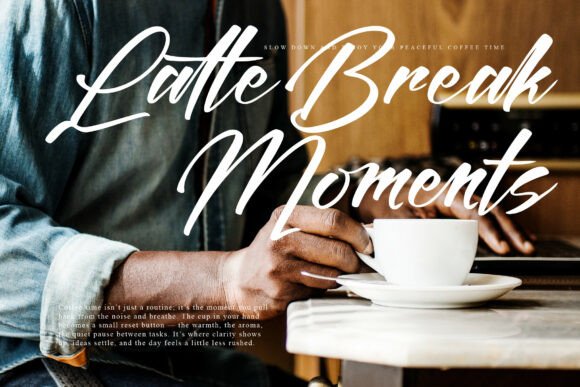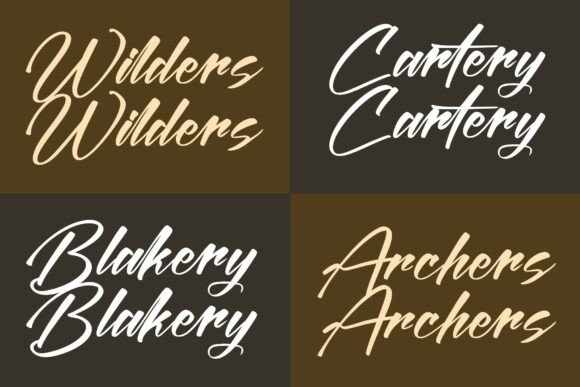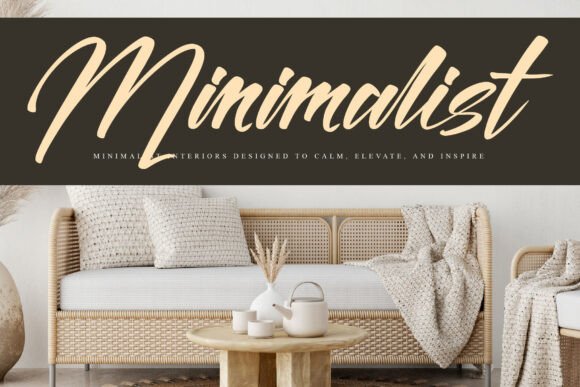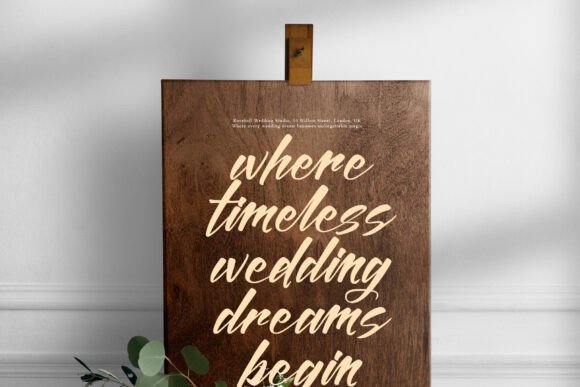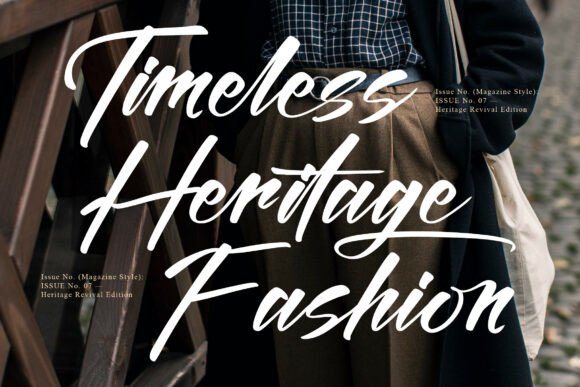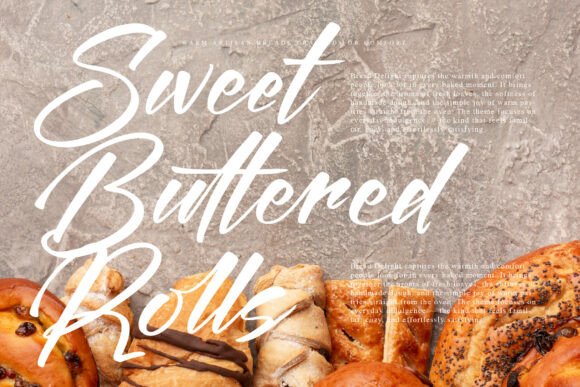
I still remember the frustration of working on a project, hours spent crafting the perfect design, only to hit a roadblock when it came to choosing the right font. My client wanted something modern, yet elegant; something that would make their brand stand out in a crowded market. I scoured the internet, tried out countless fonts, but nothing seemed quite right. That was until I stumbled upon **Blackers Luminous**. This stunning script font has been a game-changer for my design work, and I’m excited to share my experience with you.
An Honest Review of Blackers Luminous
• ✨ **Smooth, sweeping connectivity**: Blackers Luminous has a fluid, natural look that’s perfect for creating a bespoke feel.
• ✅ **Bold stroke variations**: The font’s dynamic strokes add a level of sophistication and elegance to any design.
• 💡 **High degree of authenticity and personal charm**: Blackers Luminous feels like handwriting, making it perfect for brands that want to convey a sense of personality.
• 📚 **451 total glyphs**: This font is packed with options, making it incredibly versatile.
• 🤔 **Limited use in very formal or traditional contexts**: Blackers Luminous is a modern, edgy font that might not be suitable for more conservative brands.
• ⚠️ **May require some experimentation to get the hang of OpenType features**: But trust me, it’s worth it!
The Story Behind Blackers Luminous
Blackers Luminous was designed with the modern brand in mind. Its creator wanted to craft a font that would exude confidence and a cool, urban edge. Inspired by the fluidity of brush lettering, Blackers Luminous is the perfect tool for designers looking to add a touch of sophistication and personality to their work.
Q: What kind of projects is Blackers Luminous best suited for?
A: Blackers Luminous is perfect for fashion labels, custom merchandise, street-style branding, social media influencers, and creative agencies.
Q: Is Blackers Luminous easy to read?
A: Yes, Blackers Luminous is a highly legible script font, making it suitable for a wide range of applications.
Q: Does Blackers Luminous come with PUA encoding?
A: Yes, Blackers Luminous includes PUA encoding, making it easy to access special characters and decorative elements.